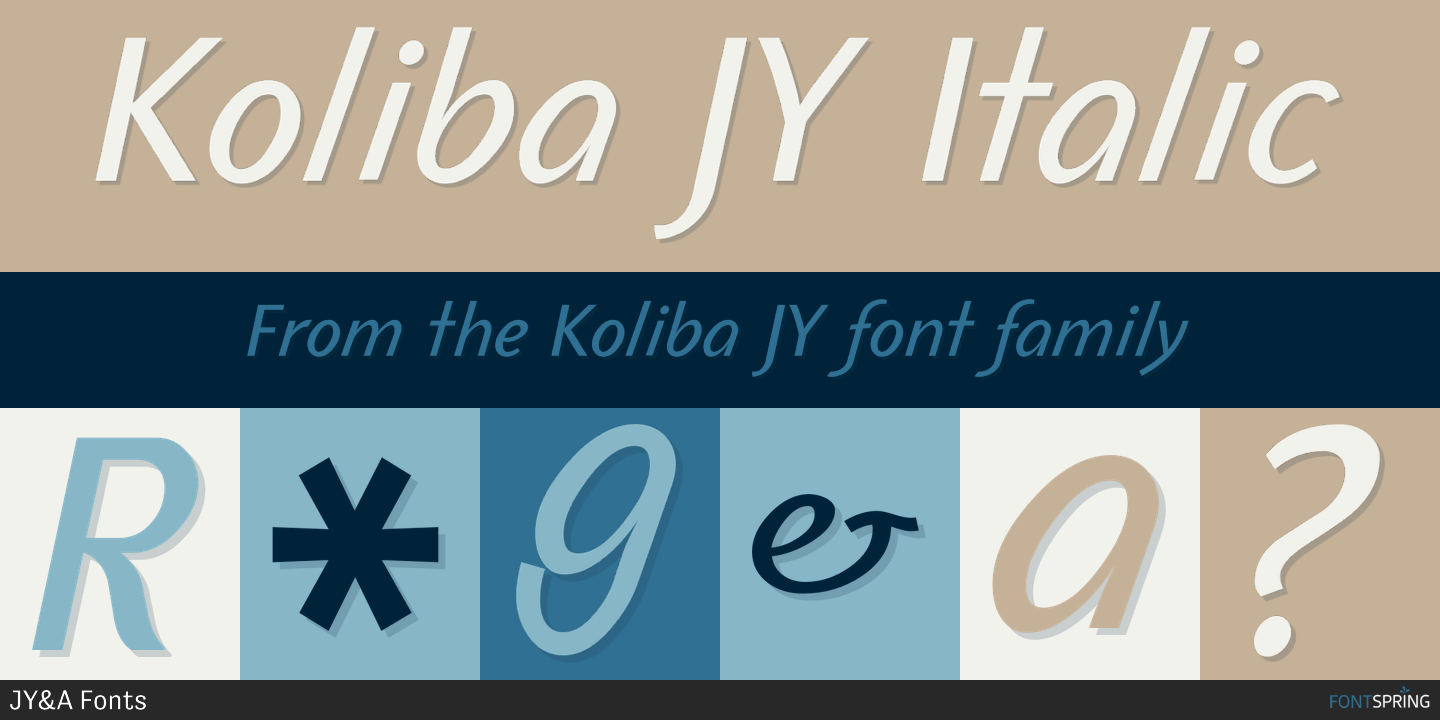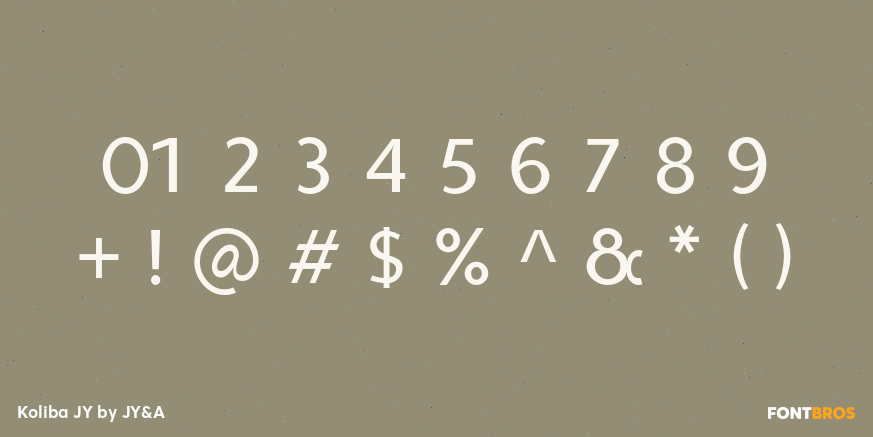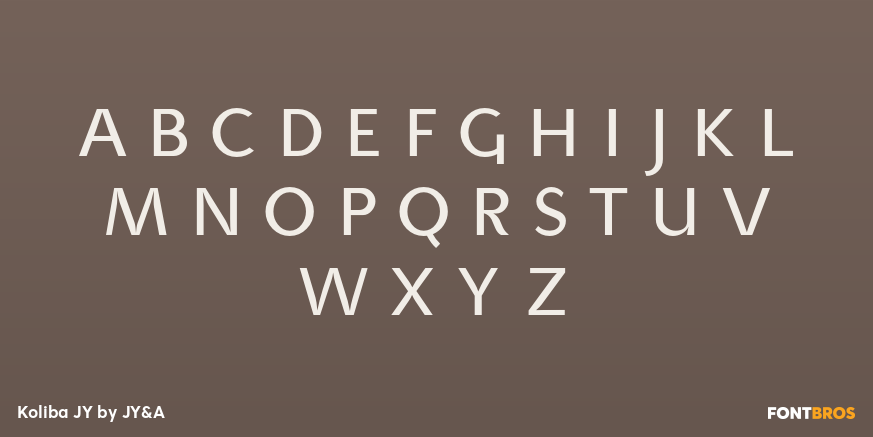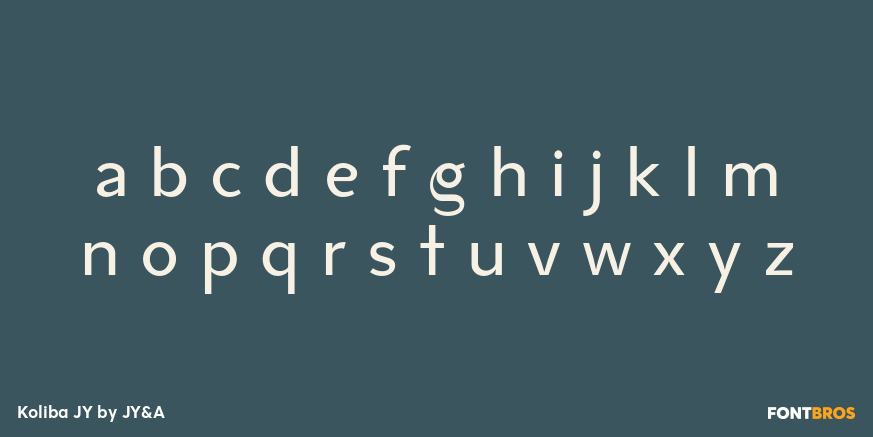
Koliba JY
Font Family by JY&A
Inspired by architecture and hand-lettered posters of the 1940s, JY Koliba makes a statement that is very 21st century. With an ultra-light weight plus an elegant book and bold, Koliba was designed to be flexible. Fine-tuned with a full Latin glyph complement, and Windows kerning support for designer Jure Stojan's Slovenian mother tongue, Koliba is set to be one of the foundry's best-loved sans serifs.